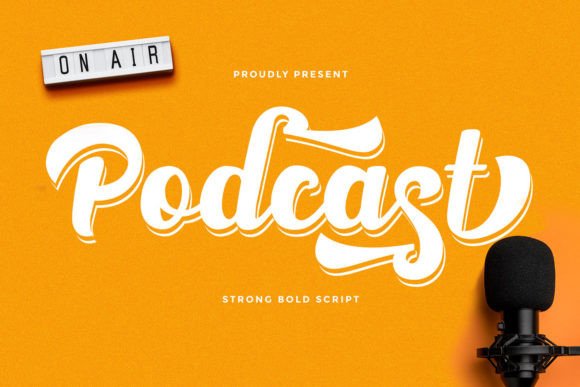
Step into the world of Podcast Font, a script font family that will add a dash of allure and sophistication to your designs. Inspired by the dynamic world of food branding, Podcast is the perfect font for businesses and individuals seeking to make a lasting impression.
As a modern handwritten font, Podcast possesses a captivating charm that draws in the eyes and engages the senses. Its bold strokes and playful curves exude a sense of warmth and personality, making it ideal for logotypes, branding, promotional ads, and social media posts.
Let Podcast be your culinary companion, guiding your taste buds through a journey of flavors. Its delectable versatility makes it the perfect choice for packaging, t-shirt designs, posters, and any other design project that calls for a touch of gastronomic flair.
With Podcast, your words will dance and your designs will sing. Its PUA encoding grants you effortless access to a world of glyphs and swashes, empowering you to unleash your creativity and elevate your work to new heights.
Embark on a culinary adventure with Podcast Font. Let its bold strokes and playful curves tantalize your taste buds and take your designs to a whole new level. Grab your copy today and elevate your designs to culinary excellence!